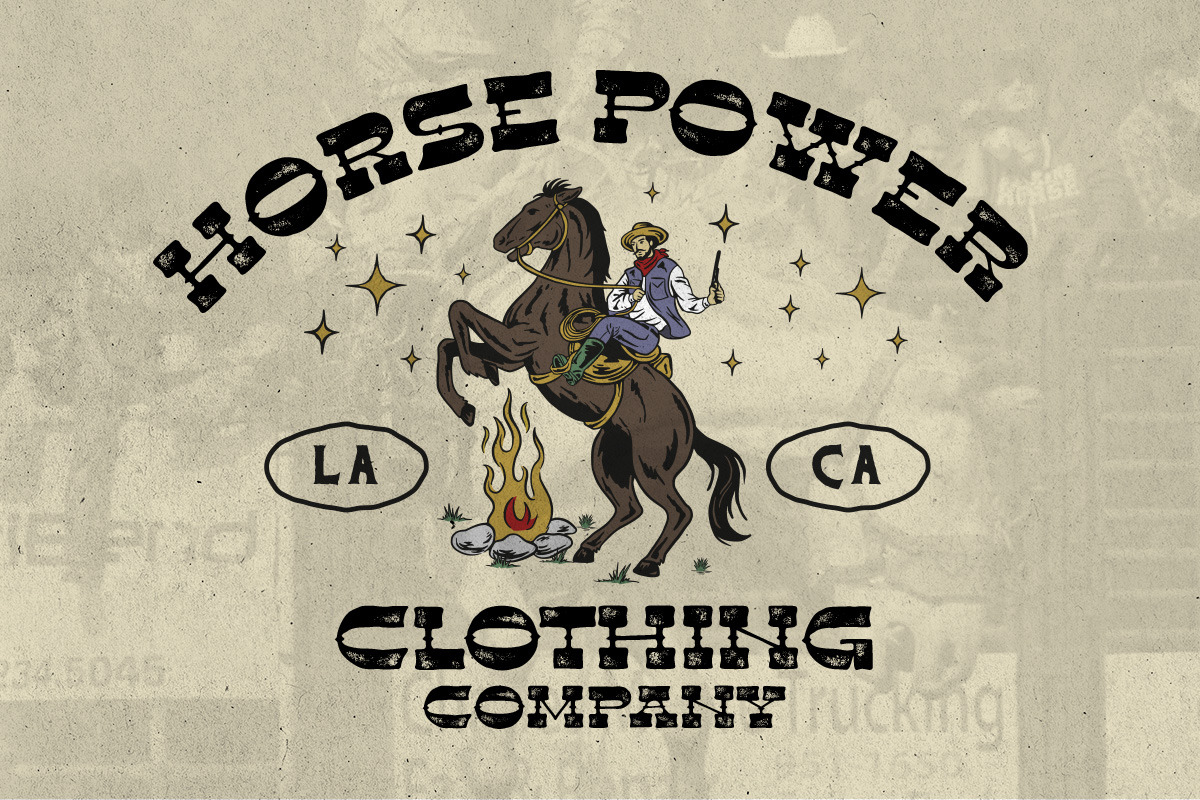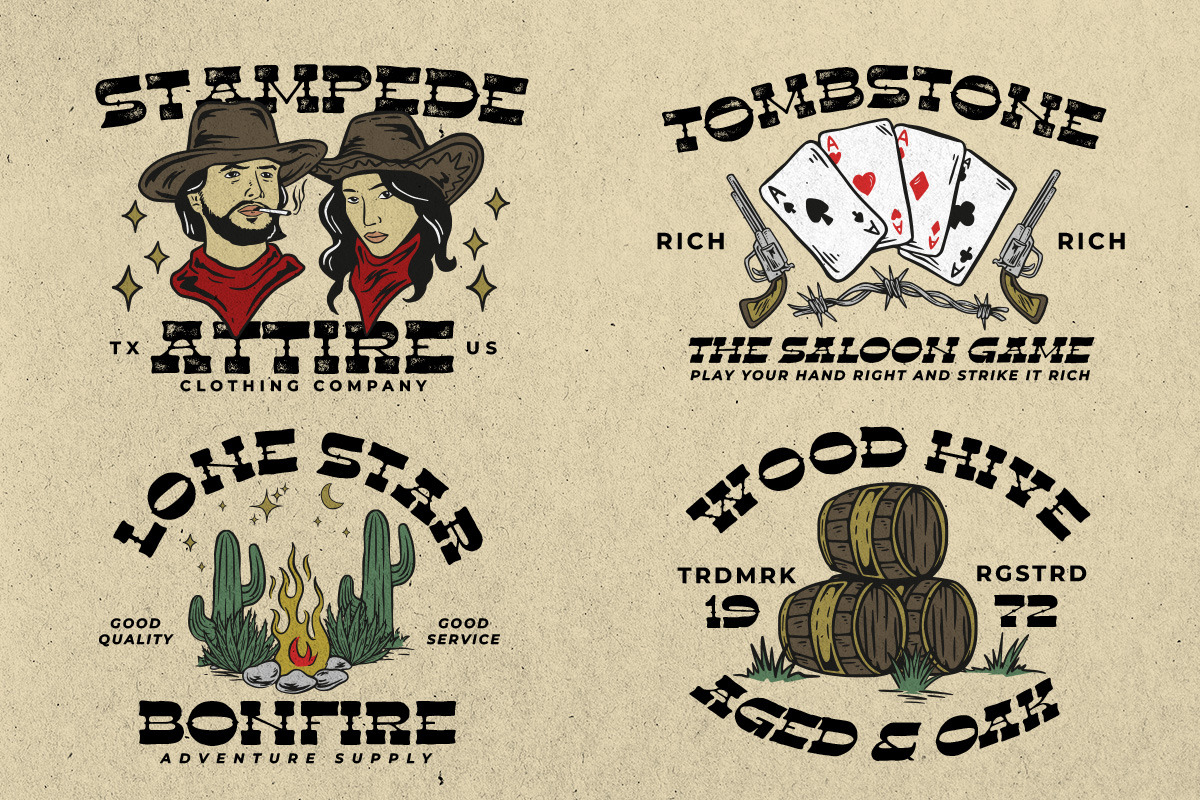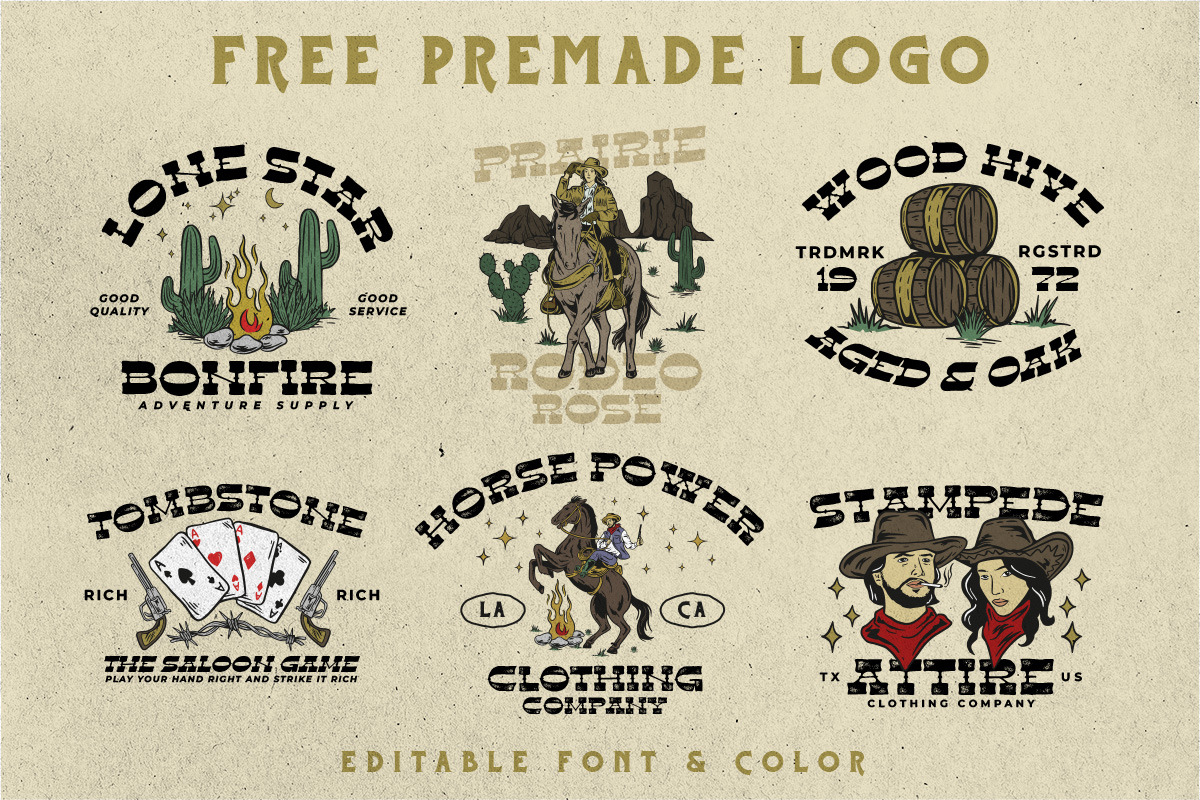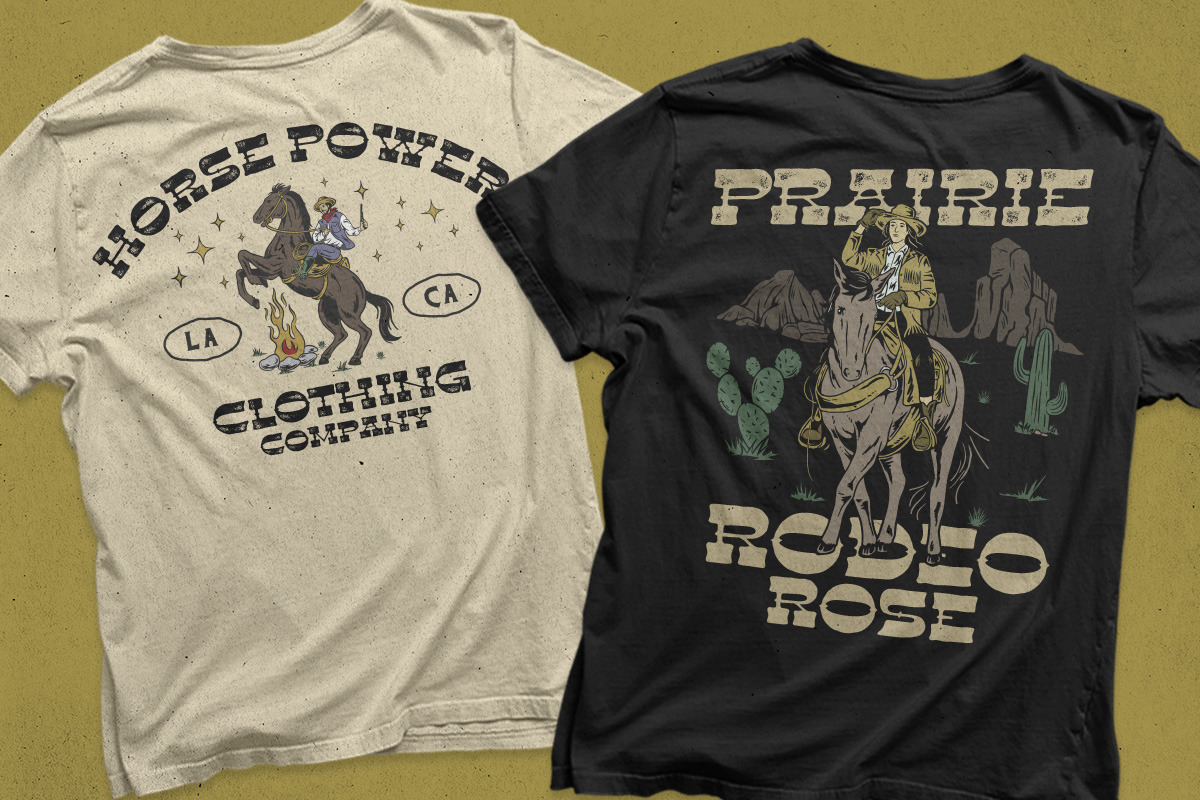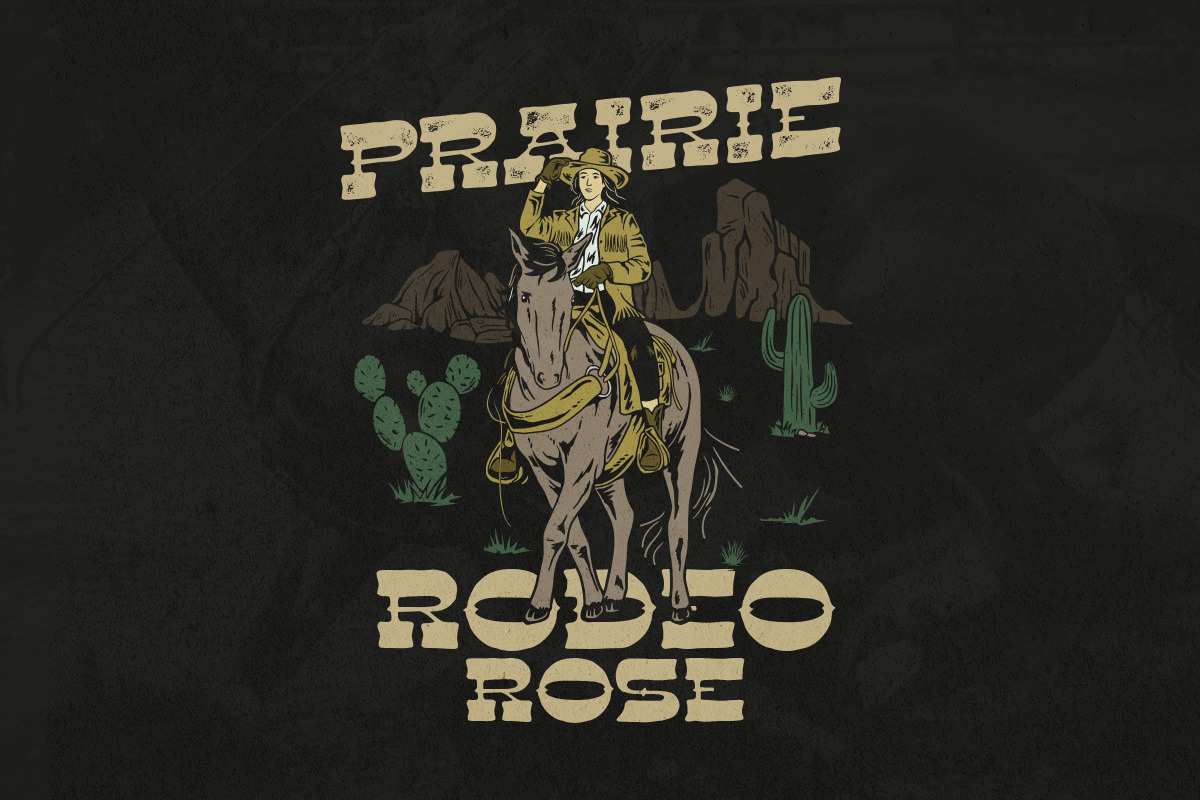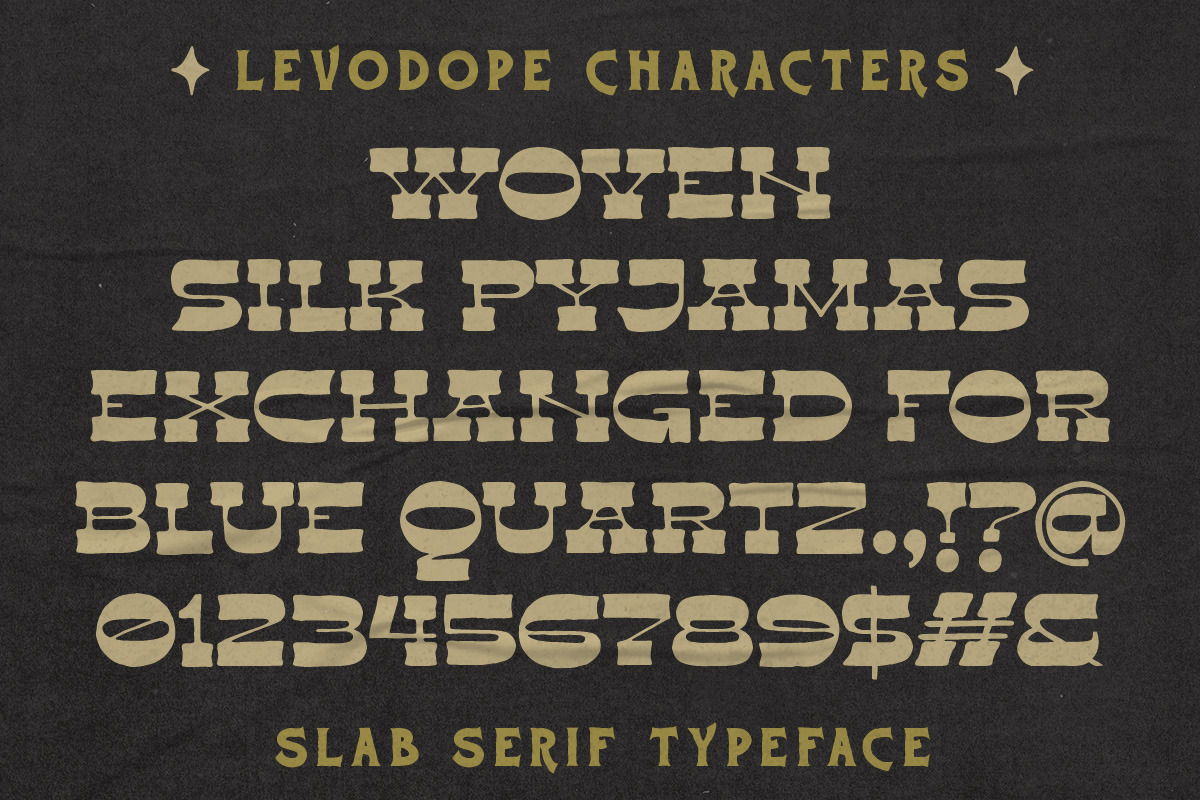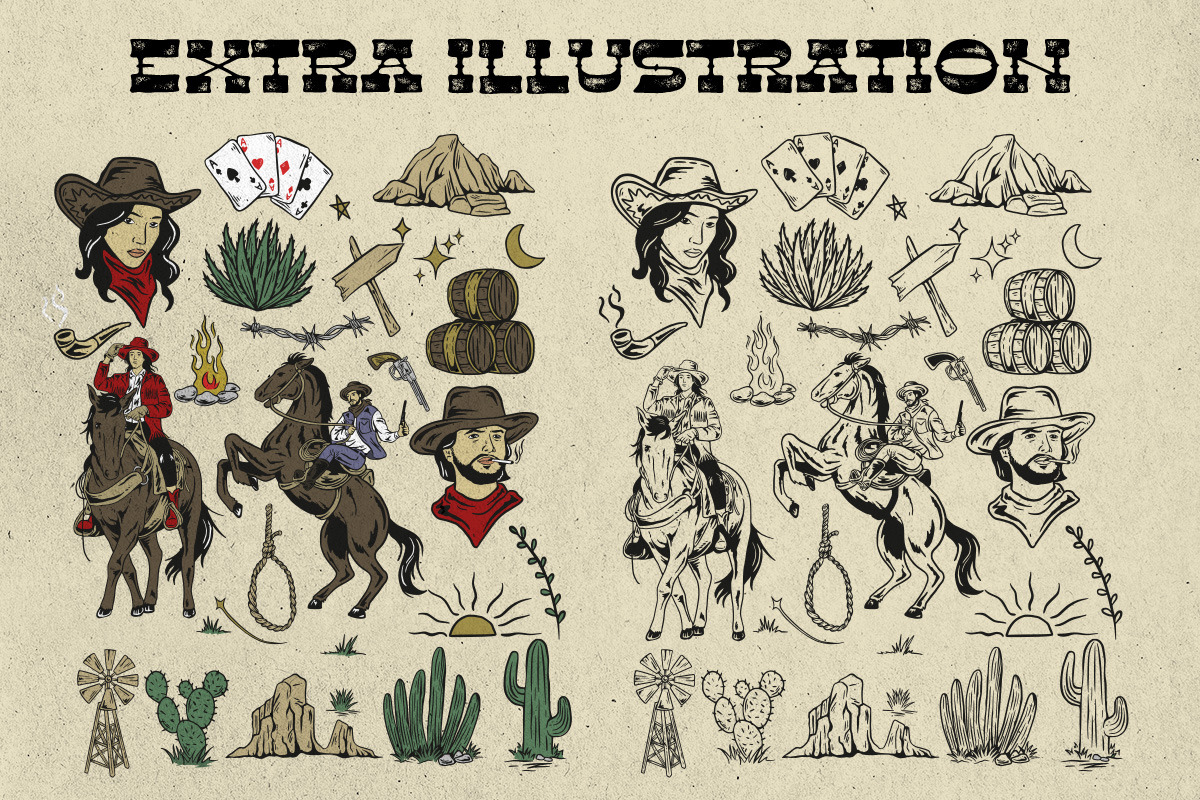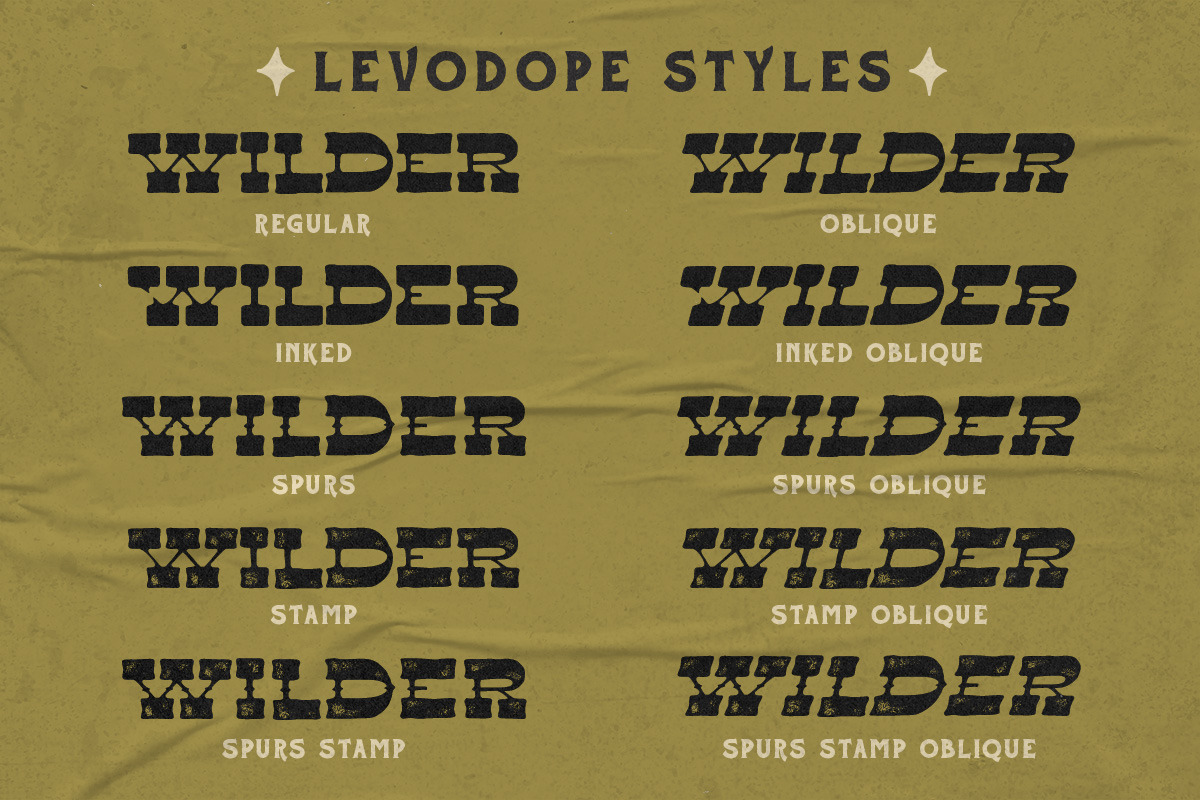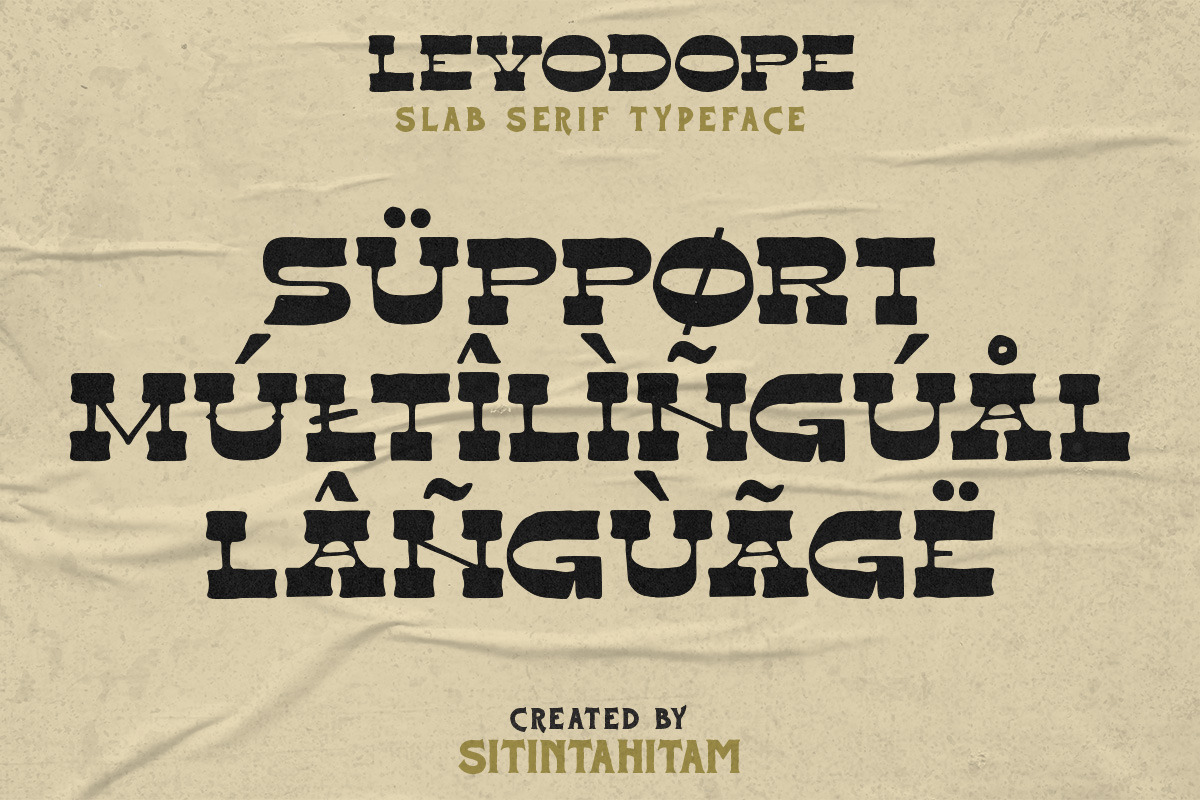
Levo Dope + Extras
Introducing Levo Dope Slab Serif Font a typeface that exudes boldness and confidence. With its thick, heavy serifs and rectangular shape, this font is the perfect choice for any design that needs to make a strong impact. Transport your audience to the American West with the vintage charm of the Western slab serif font. Whether you're creating posters, advertisements, or signage, this font will capture attention and convey a sense of stability and strength. Also come with FREE illustrations and editable logo to make better design.